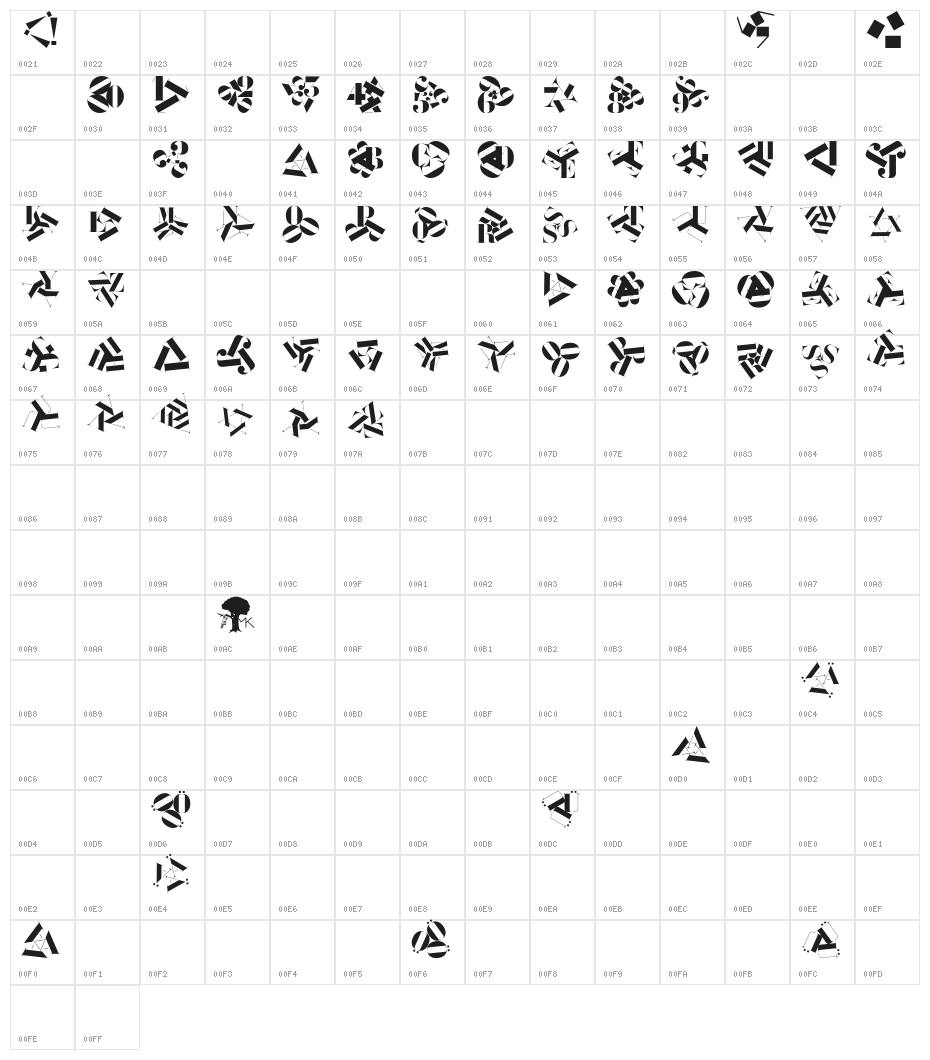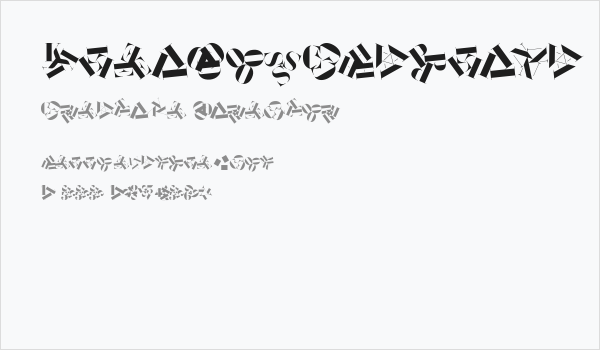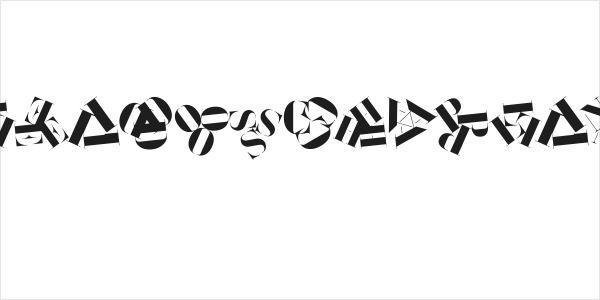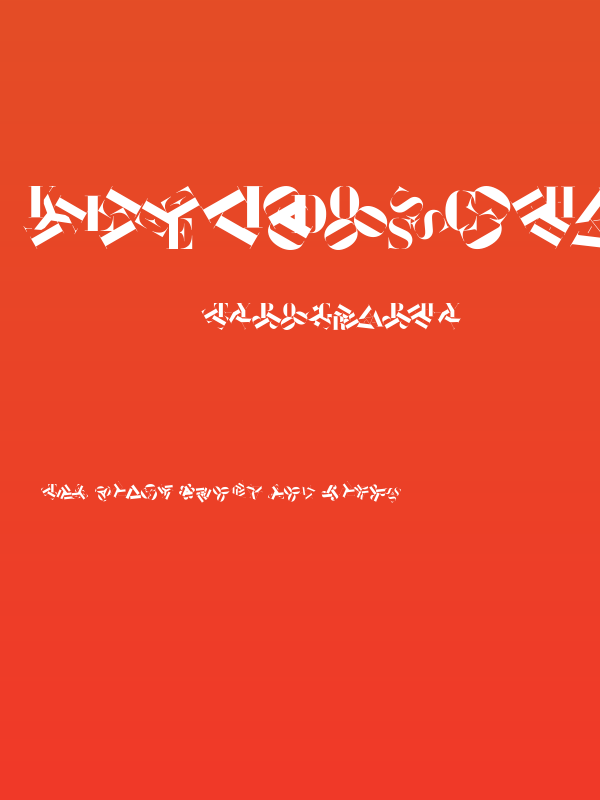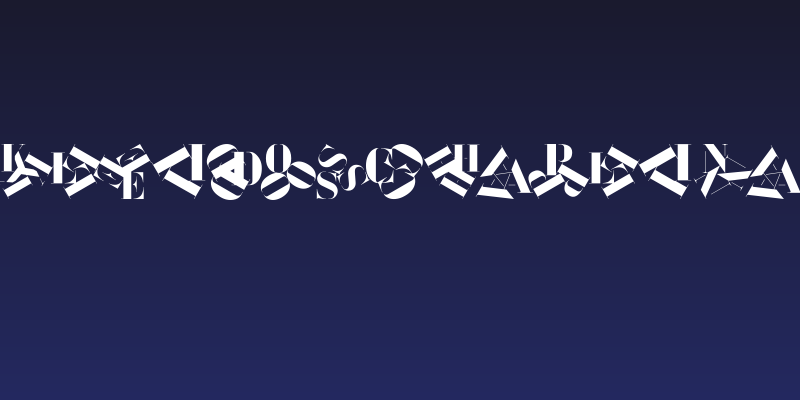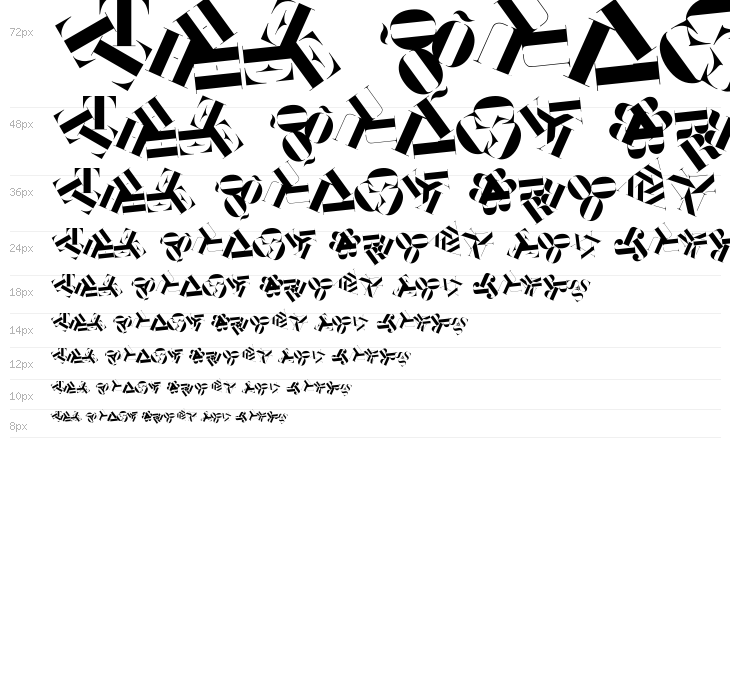
KleidosChaplina Font
KleidosChaplina Description
This font is a highly decorative and abstract design, characterized by its geometric and fragmented style. Each character is composed of various shapes and angles, creating a sense of movement and complexity. The font features a mix of thick and thin strokes, with high contrast and a dynamic, almost chaotic appearance. It is visually striking and unconventional, making it suitable for artistic and avant-garde projects. The unique construction of each letterform gives it a distinct personality, ensuring that it stands out in any design context.
Overall StyleModern, Decorative
Use CaseLogos, Headlines, Artistic Projects
Proposed ProjectsIdeal for artistic posters, avant-garde branding, album covers, and experimental design projects.